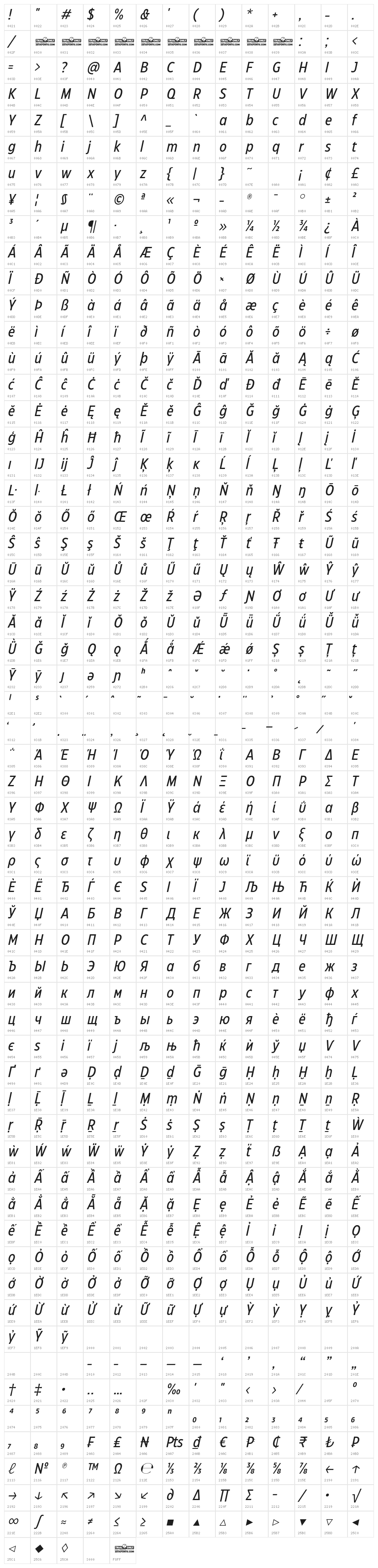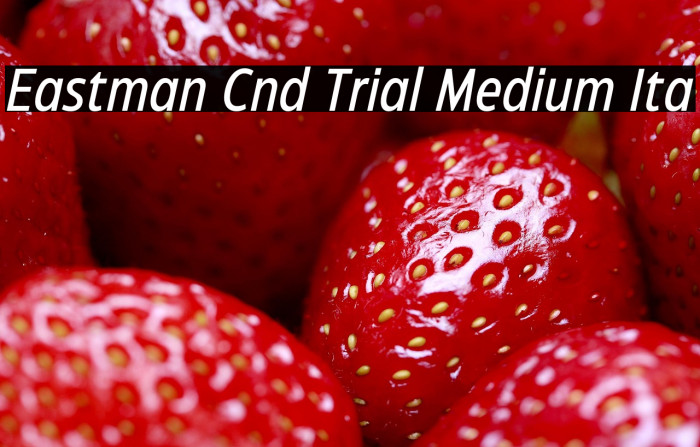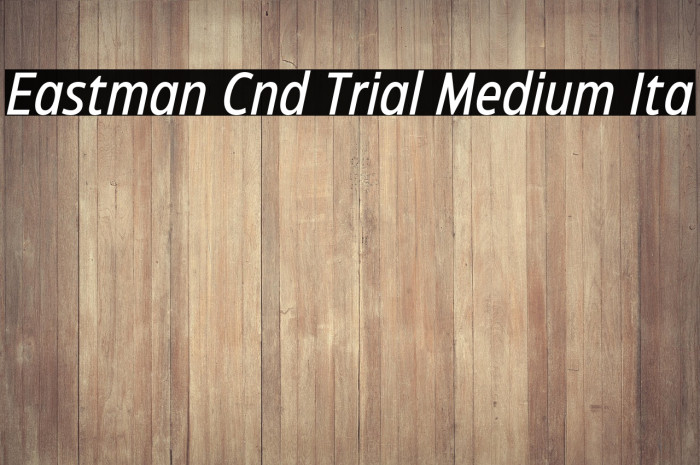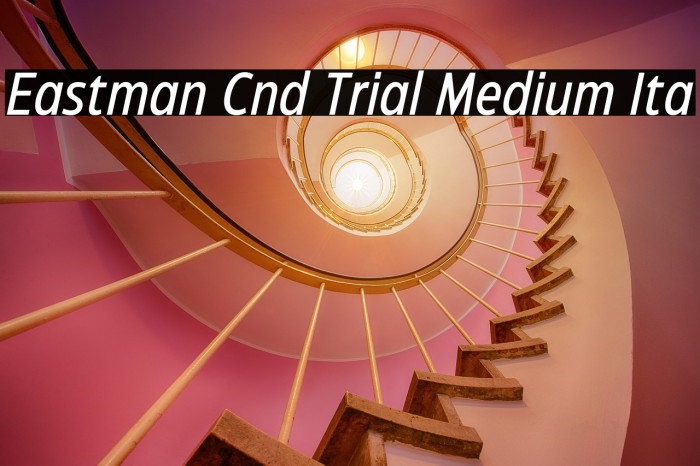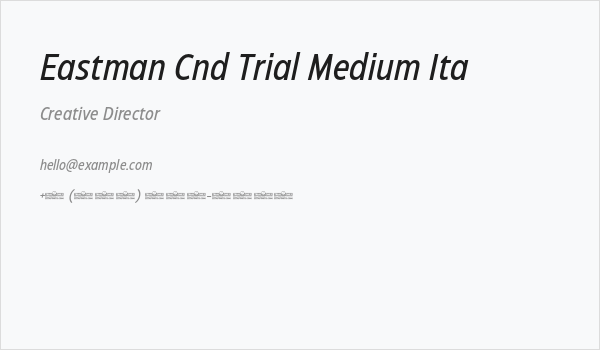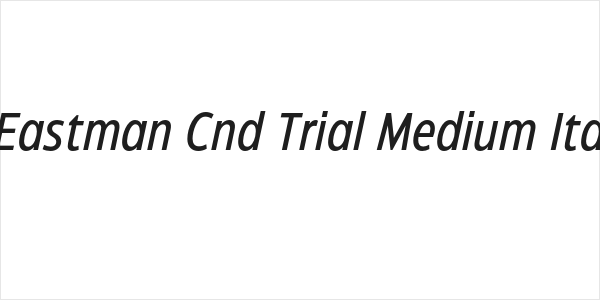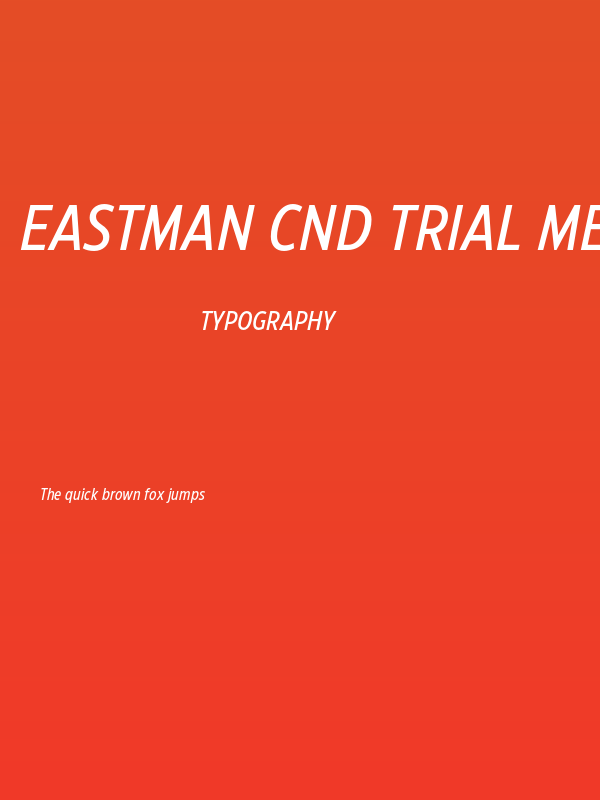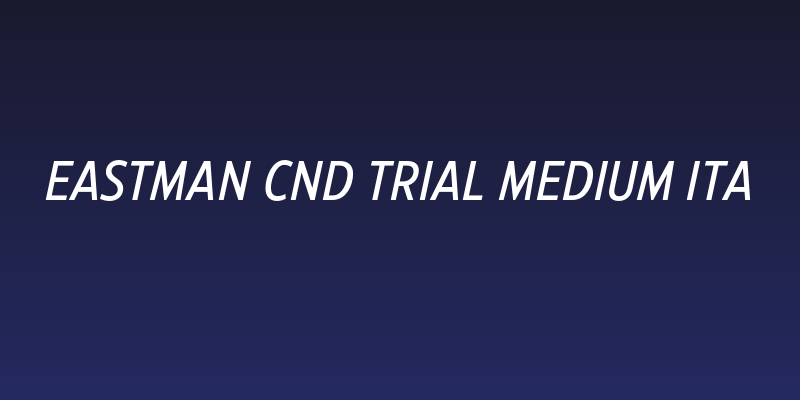
Eastman Cnd Trial Medium Ita Font
Eastman Cnd Trial Medium Ita Description
This font features a modern and sleek design with a slightly condensed form, giving it a streamlined appearance. The italic style adds a dynamic and forward-leaning character to the text. The strokes are consistent, with medium contrast, providing a balanced look that is both professional and approachable. The characters are well-spaced, ensuring readability while maintaining a compact form. The overall style is contemporary, making it suitable for a variety of digital and print applications.